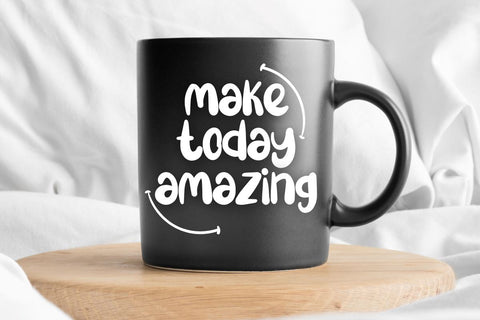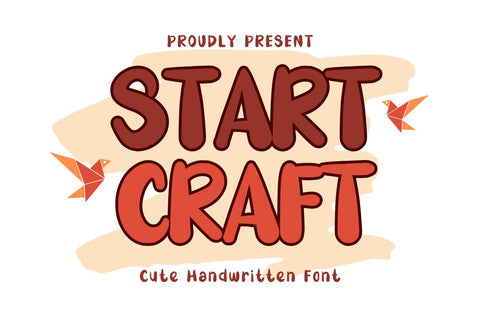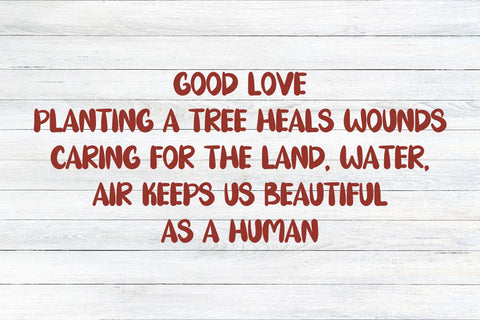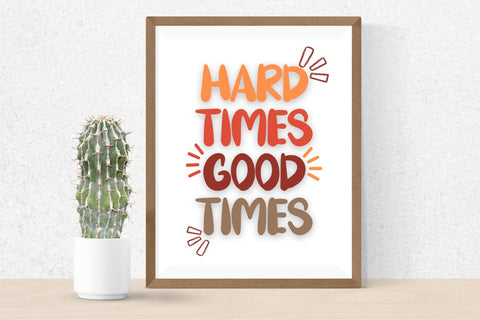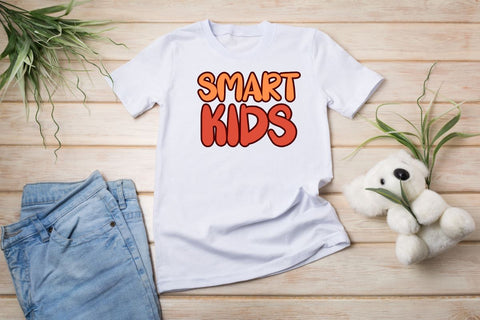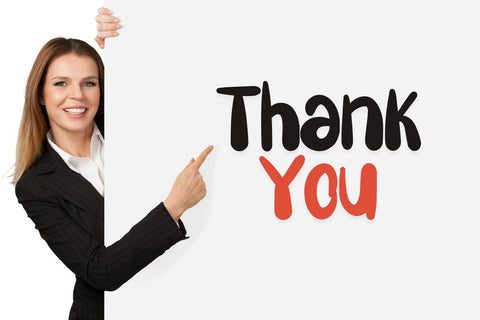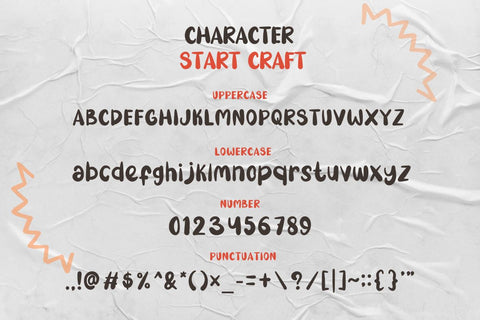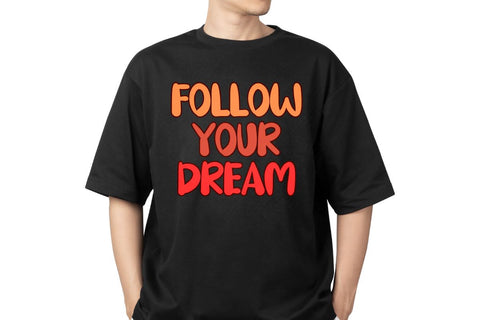
Start Craft - Cute Handwritten Font
A display font with a natural cute style. This font was created with original writing. This font is great for t-shirts, stickers, mugs, print, labels, crafts, svg cut files, cricut, wall art, social media, web, branding, business and many other ideas.
- Numbers & Punctuation